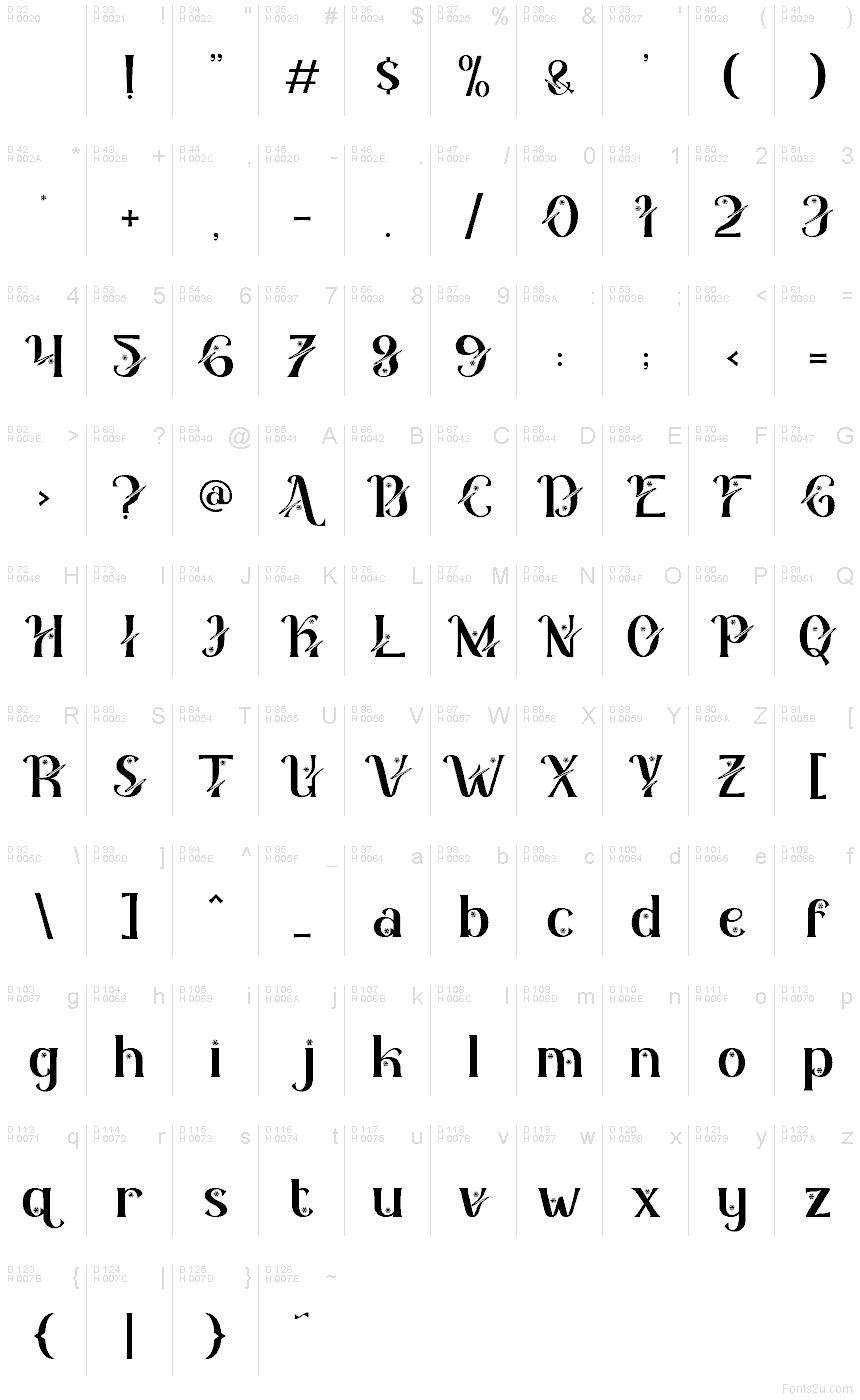
Spark Jingle
Spark Jingle font by PutraCetol Studio is a free Christmas holiday typeface that looks like it’s been dusted with fresh snow and wrapped in ribbon. Curvy letterforms swoop and curl like hanging ornaments, while tiny snowflake details sparkle inside the strokes, giving every word a festive, hand-crafted feel. It has a playful elegance—polished enough for seasonal branding, but still warm and storybook-soft for cozy winter themes.
Using Spark Jingle, your Christmas cards, gift tags, party invitations, Advent calendars, mug designs, and social media posts instantly feel more magical and on-theme. This free font shines on big headlines and short phrases; pair it with a simple sans serif for body text to keep everything readable. Use it large so those snowflake accents and sweeping curves really sing on print and screen.